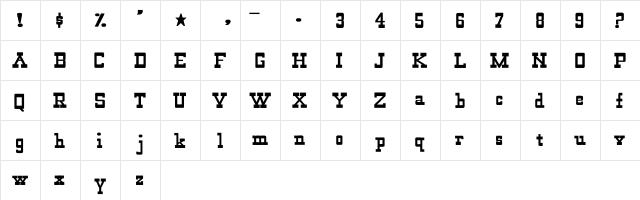
WildWest-Normal Bold Regular Font Preview
WildWest-Normal Bold Regular
Design Context for WildWest-Normal Bold Typeface
WildWest-Normal Bold is a composed and adaptable typeface that performs quietly and consistently across a wide range of design contexts. The heavy weight commands attention and anchors typographic hierarchies.